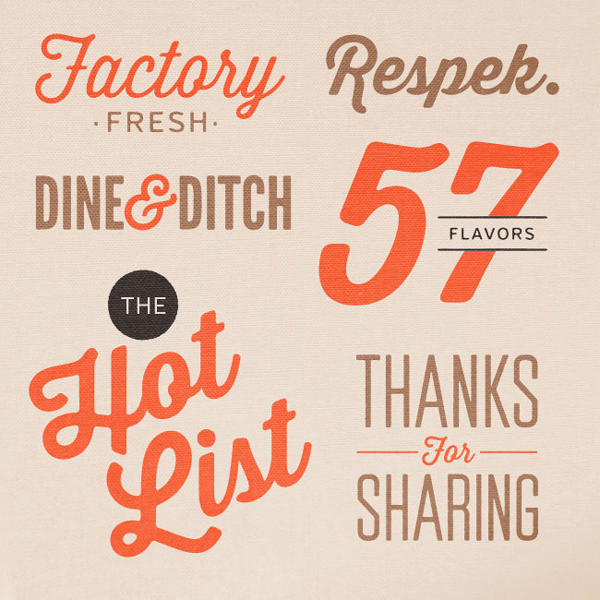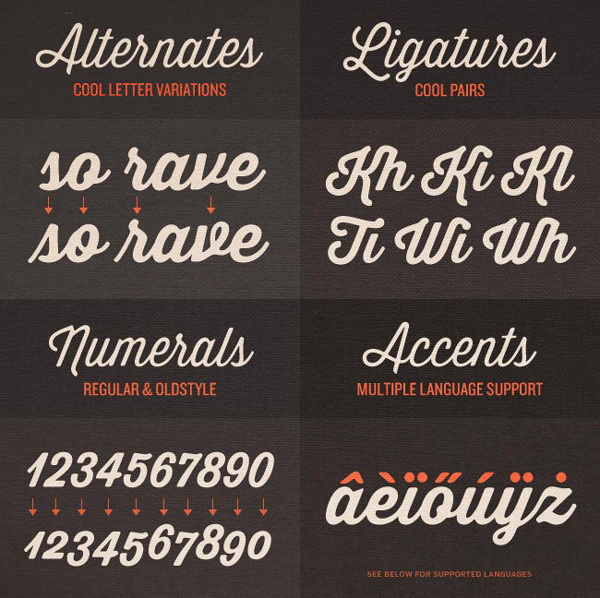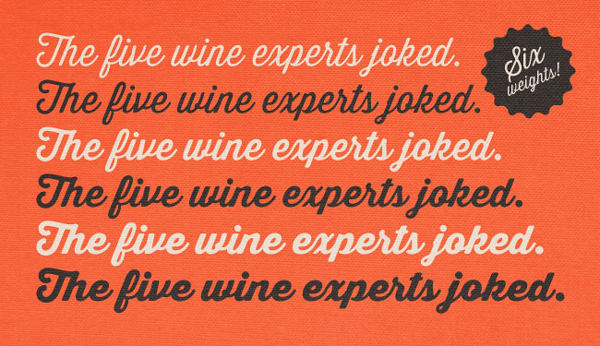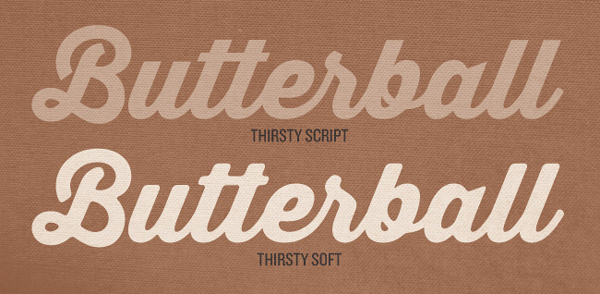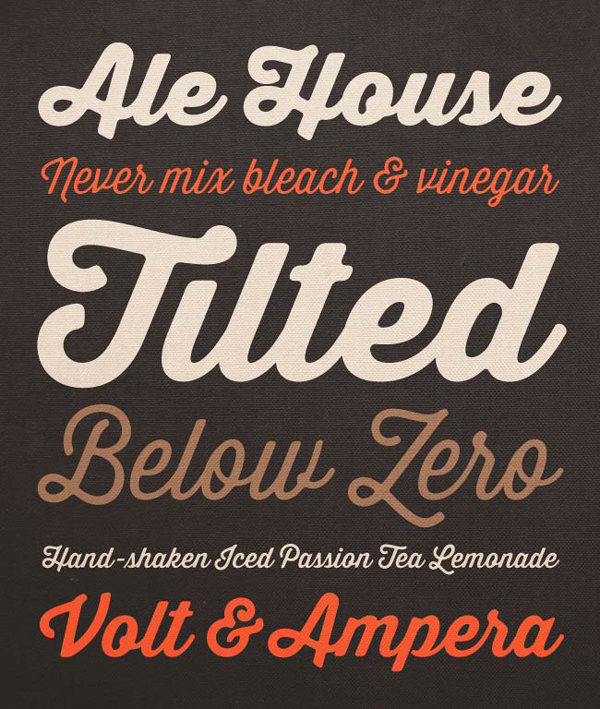
If you remember the amazing energetic Thirsty Script font from Yellow Design Studio, you’ll certainly want to check this deal out! Not only is Mighty Deals bringing the savings⦠but we’re also bringing you the EXCLUSIVE first chance to own the new Thirsty Soft Font Family!